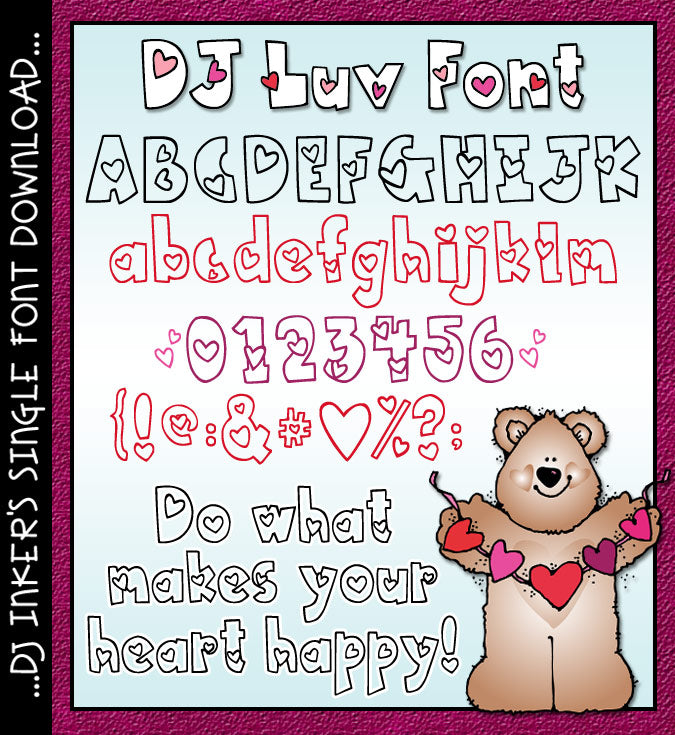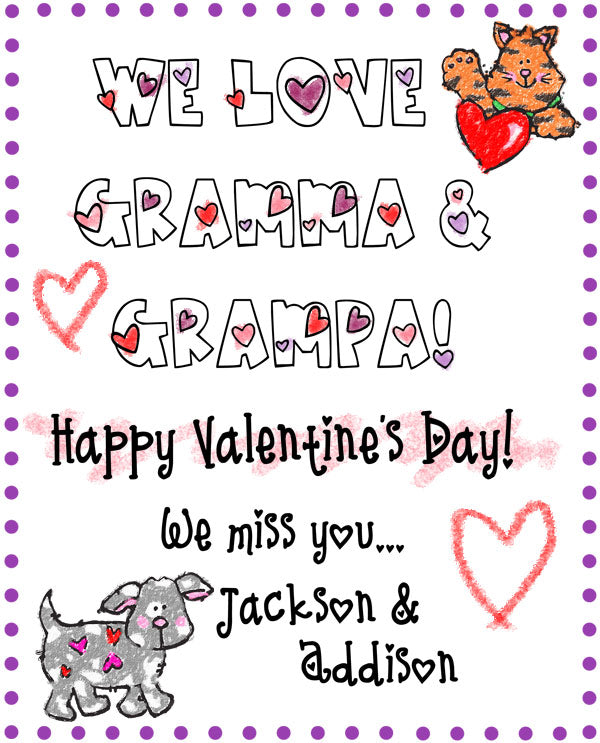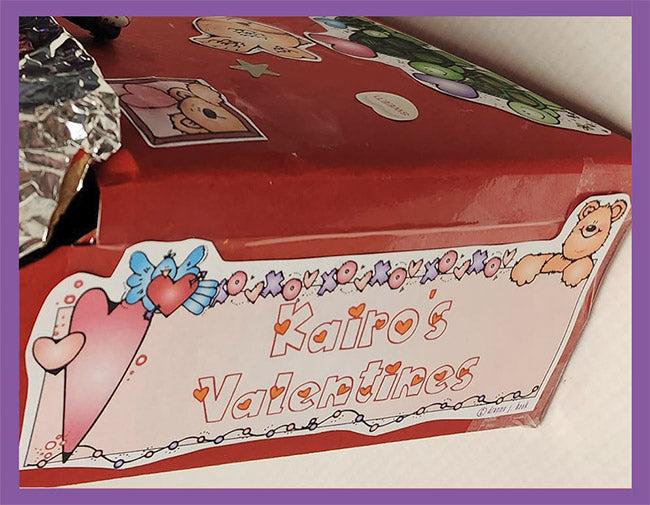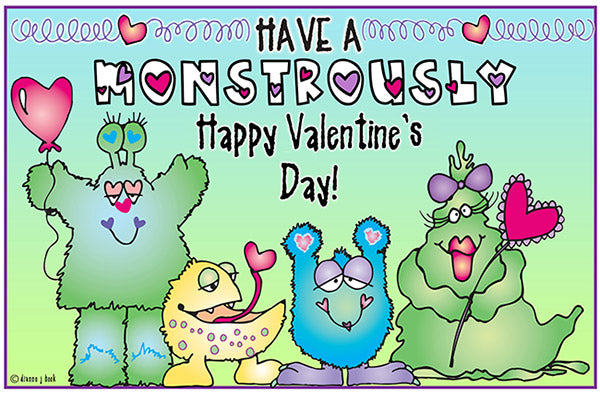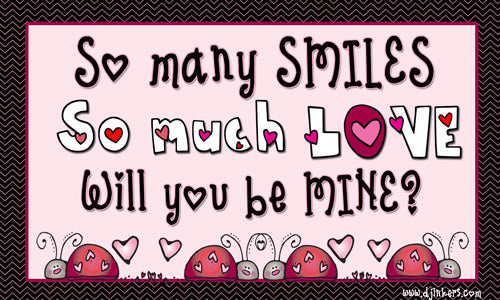
DJ Luv Font - Heart Lettering for Valentine's Day by DJ Inkers
DJ Luv Heart Font Download
DJ Luv Font - Heart Lettering for Valentine's Day by DJ Inkers
DJ Luv Heart Font Download
Type up a smile with a little DJ Luv using this adorable heart font! It'll be fabulous for anything Valentine's Day: cards & heartfelt gifts, party decorations, personalized mailboxes, bulletin boards & more. But you can share the love with this font all year long... it's great for anniversaries, weddings, date night and love letters too!